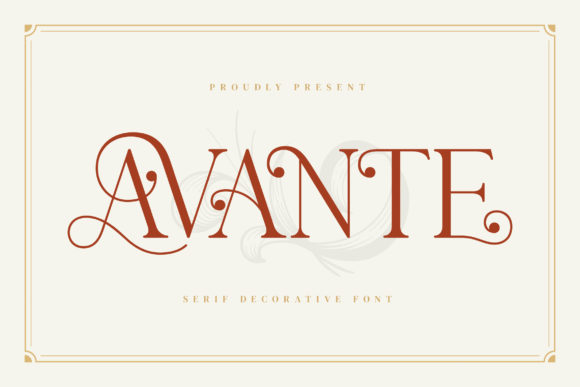
Dive into the world of sophisticated typography with Avante Font, a serif masterpiece that exudes timeless elegance and modern aesthetics. Immerse yourself in the realm of creativity, where Avante's graceful curves and sharp serifs intertwine to capture the essence of minimalism.
Whether you're a seasoned designer or a creative enthusiast, Avante empowers you to transform your design visions into captivating realities. Its versatile nature seamlessly adapts to a myriad of design endeavors, including templates, brochures, and videos. Unleash your imagination and craft logos that radiate sophistication, leaving an indelible mark on your audience's minds.
Avante's charm extends beyond its visual appeal. Its meticulously crafted characters ensure exceptional readability, making it a perfect choice for advertising branding and beyond. Whether you're crafting marketing materials, website designs, or captivating social media posts, Avante's presence commands attention and leaves a lasting impression.
Embrace the allure of Avante Font, the perfect harmony of form and function. Let your creativity soar as you witness your designs transformed into works of art. Experience the joy of seamless design, effortless communication, and the satisfaction of creating timeless impressions.